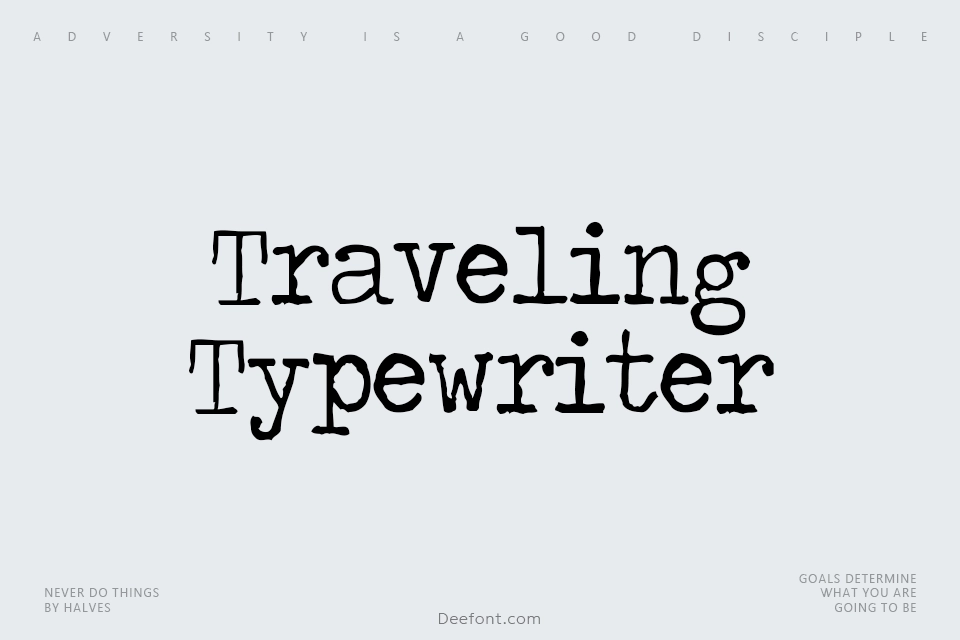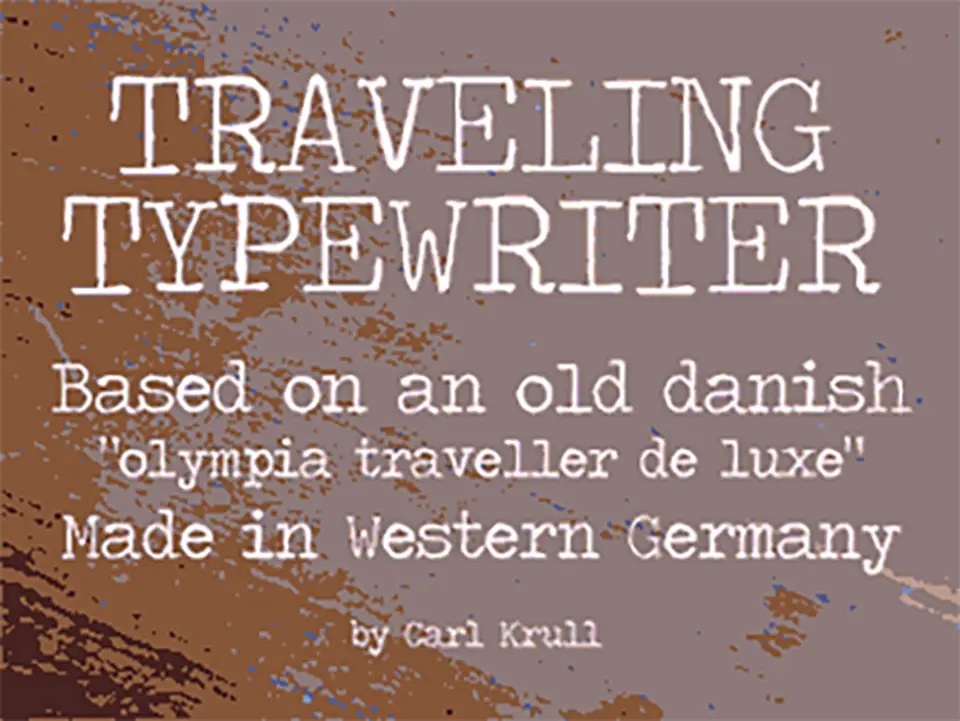
Traveling Typewriter Font
The Traveling Typewriter font is a vintage-inspired typewriter typeface designed from an old Danish “Olympia Traveller de luxe” typewriter made in Western Germany. This distressed display font features thin, faded characters that convey a nostalgic and retro aesthetic, making it perfect for posters, headlines, book covers, and vintage-themed design projects. With 228 defined characters and 218 unique glyphs supporting uppercase and lowercase letters, stylistic alternates, ligatures, symbols and punctuation marks, this typeface delivers authentic typewriter charm for creative typography.